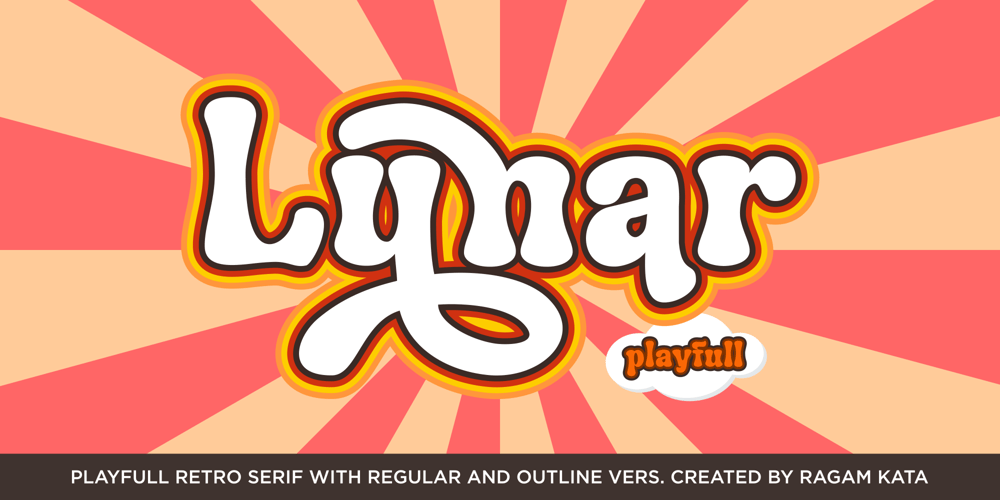
Lunar Outline Font Family was designed by Yogiswhara Dio Prakoso Riadi and published by RagamKata. Lunar Outline contains 2 styles and family package options. Lunar – Retro Serif FontIntroducing Lunar, a charismatic font that seamlessly fuses playfulness with a touch of nostalgia. This unique typeface falls under the playful retro serif display category, offering not just one, but two distinctive personalities in its regular and outline versions.Features :- Regular & Outline- Ligatures & Alternates- Letters, numbers, symbols, and punctuation- No special software is required to use this typeface even work in Canva- Multilingual Support